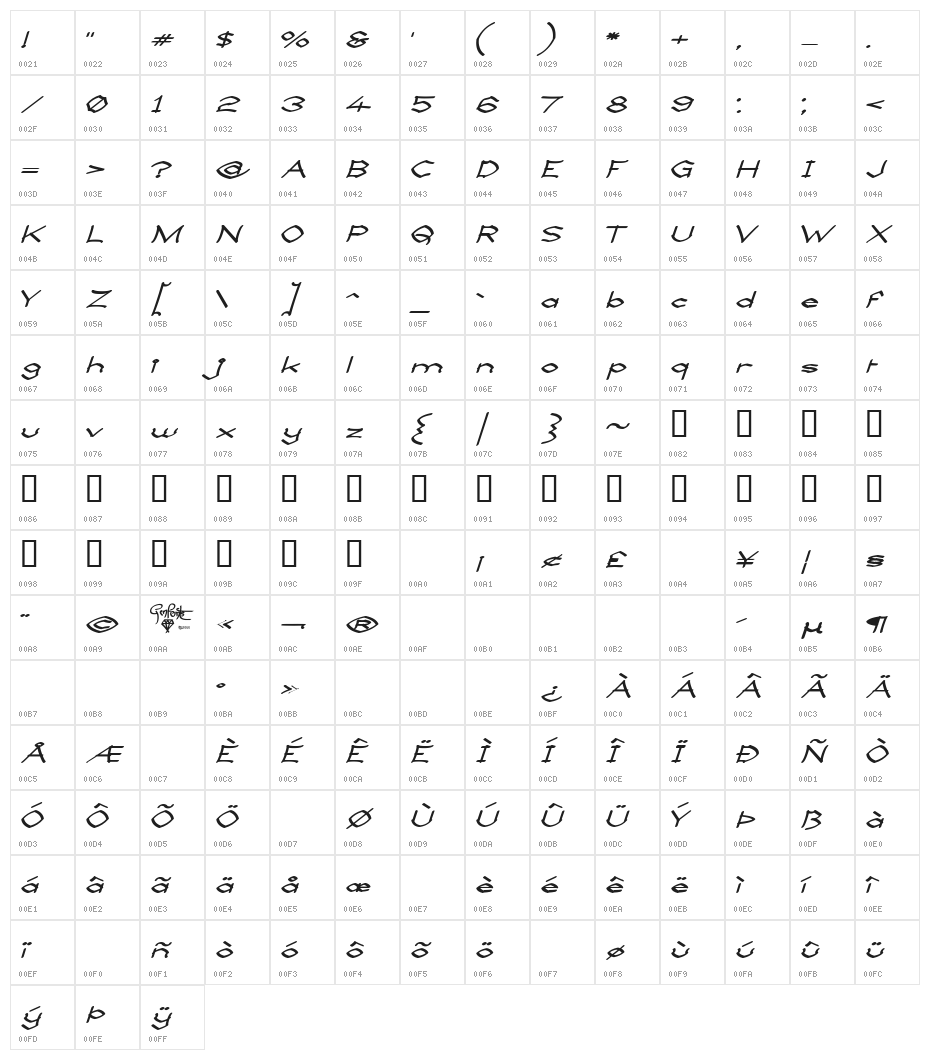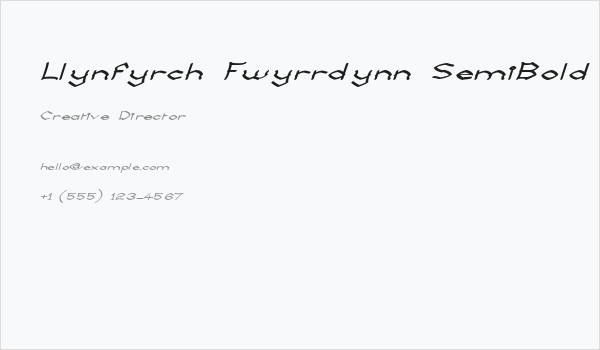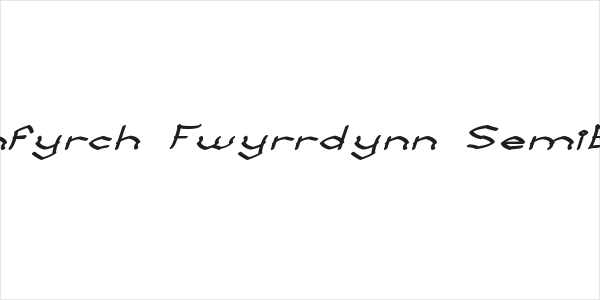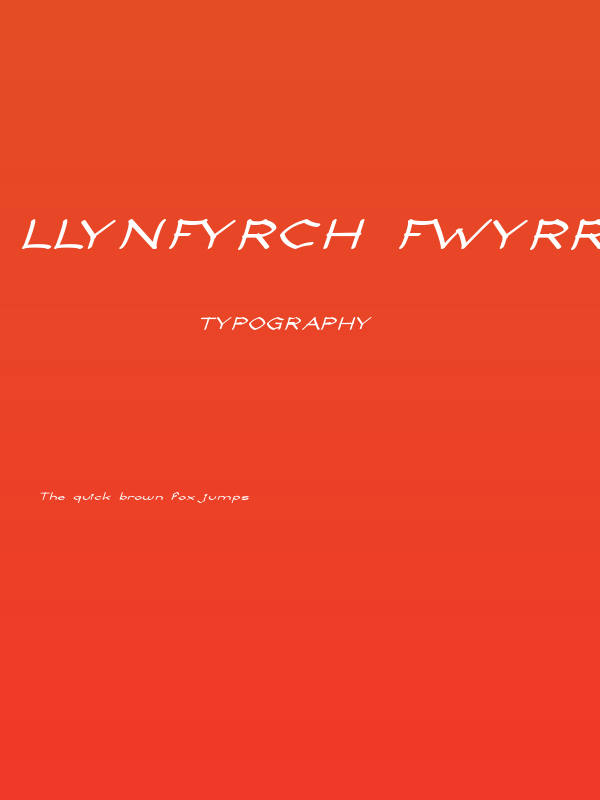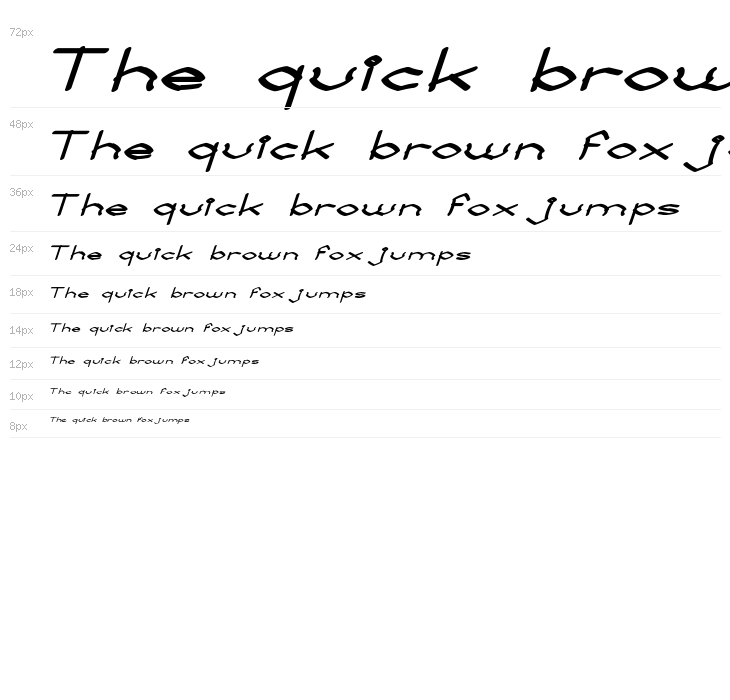
Llynfyrch Fwyrrdynn SemiBold Font
Llynfyrch Fwyrrdynn SemiBold Description
This font features a dynamic and energetic script style, characterized by its flowing, handwritten appearance. The letters are slightly slanted, giving a sense of movement and fluidity. The uppercase letters are bold and prominent, while the lowercase letters maintain a consistent style with unique flourishes, particularly noticeable in letters like 'g' and 'j'. The numerals are distinct and easily readable, maintaining the same lively style as the alphabet. Special characters are well-integrated, ensuring a cohesive look across all text. This font is perfect for projects that require a personal touch, such as invitations, greeting cards, or branding materials that aim to convey creativity and individuality.
Use CaseLogos, Headlines, Invitations
Proposed ProjectsIdeal for creative projects like invitations, greeting cards, and branding materials.